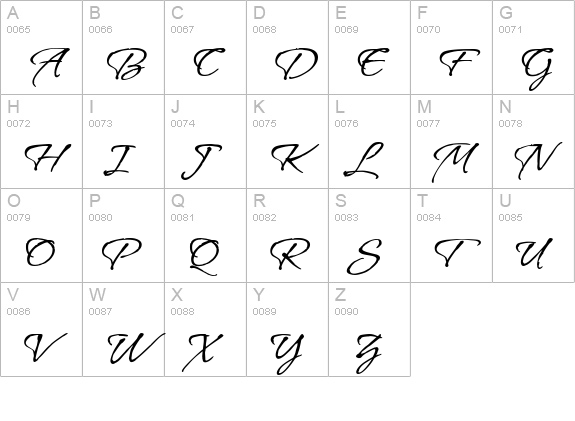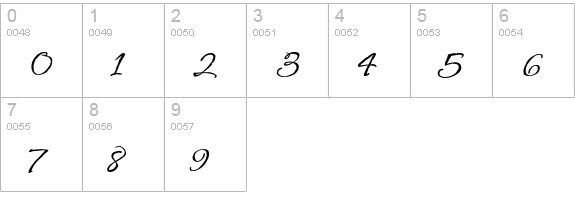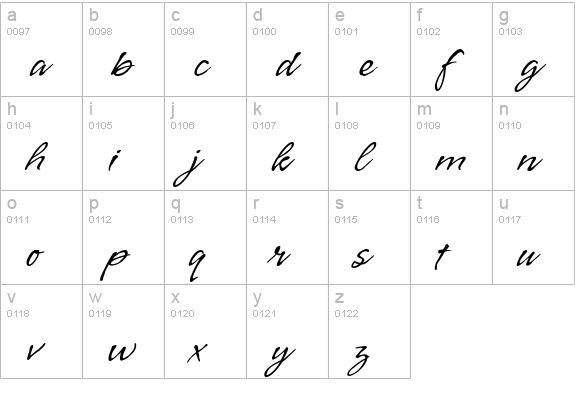
Vujahday Flourish Font Details
Introducing Vujahday Flourish font, a captivating and elegant typeface that will add a touch of sophistication to any design project. This exquisite font is meticulously crafted with intricate details and delicate flourishes, making it perfect for creating stunning logos, invitations, and branding materials. Vujahday Flourish font exudes a sense of timeless beauty, with its graceful curves and harmonious letterforms. Its unique and artistic design will instantly captivate the attention of your audience, leaving a lasting impression. What sets Vujahday Flourish font apart is not only its remarkable aesthetics but also its versatility. Whether you're designing for a wedding, a high-end event, or a luxurious brand, this font will effortlessly elevate your creations to new heights. And the best part? Vujahday Flourish font is completely free! Yes, you read that right. This remarkable font is freely available to download at FontsMarket.com. Now you can add a touch of elegance to your designs without breaking the bank. So why wait? Embrace the beauty and sophistication of Vujahday Flourish font and give your designs the attention they deserve. Download it today and experience the endless possibilities this font has to offer.